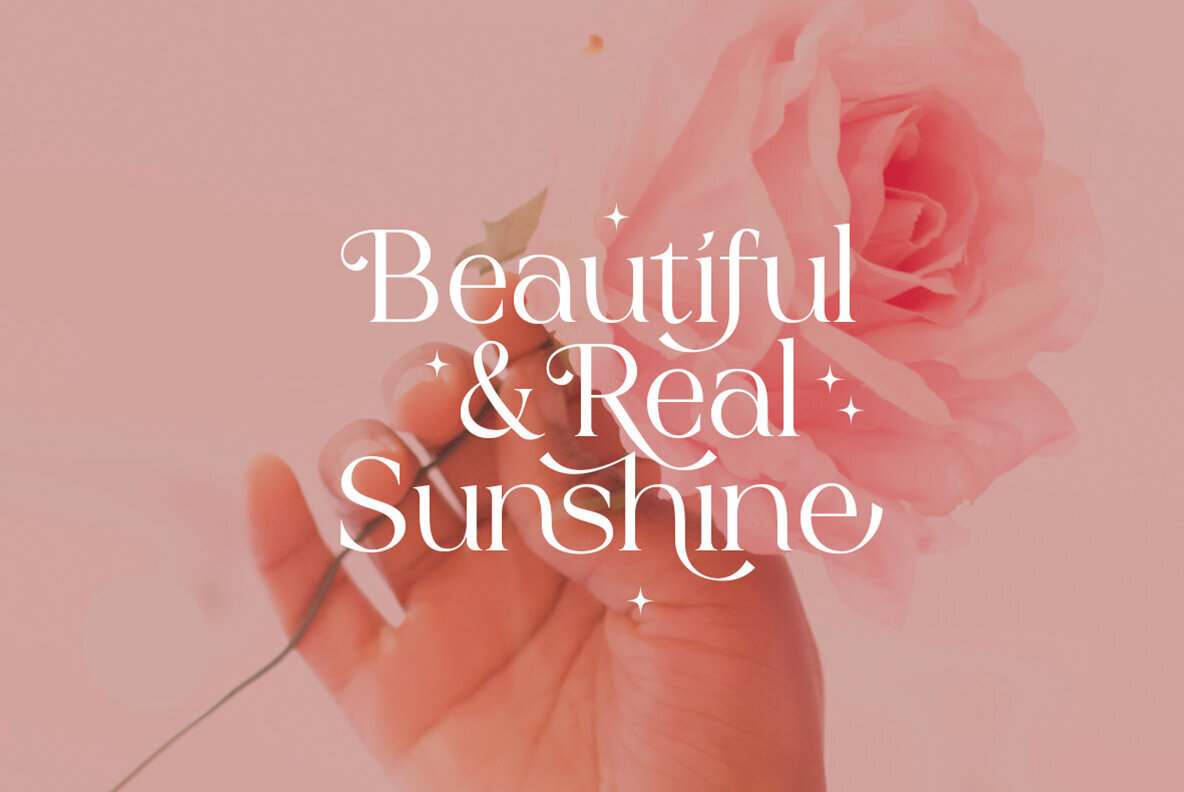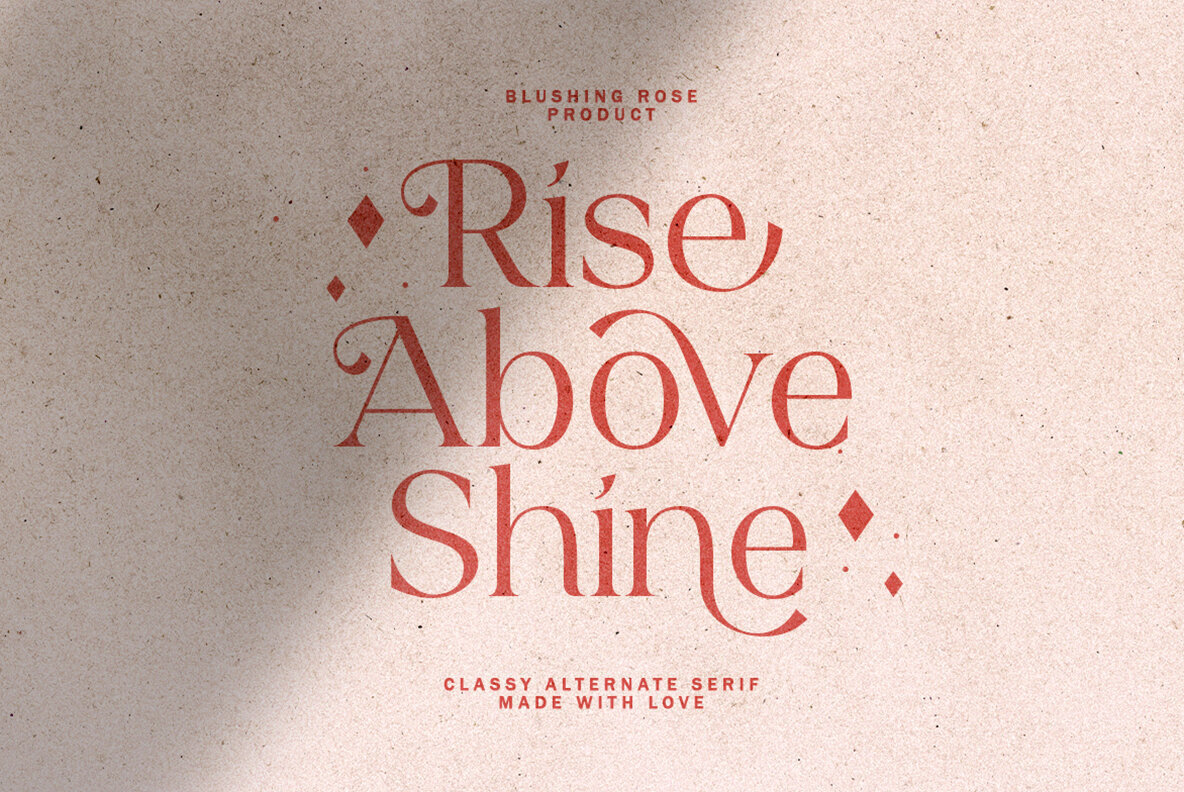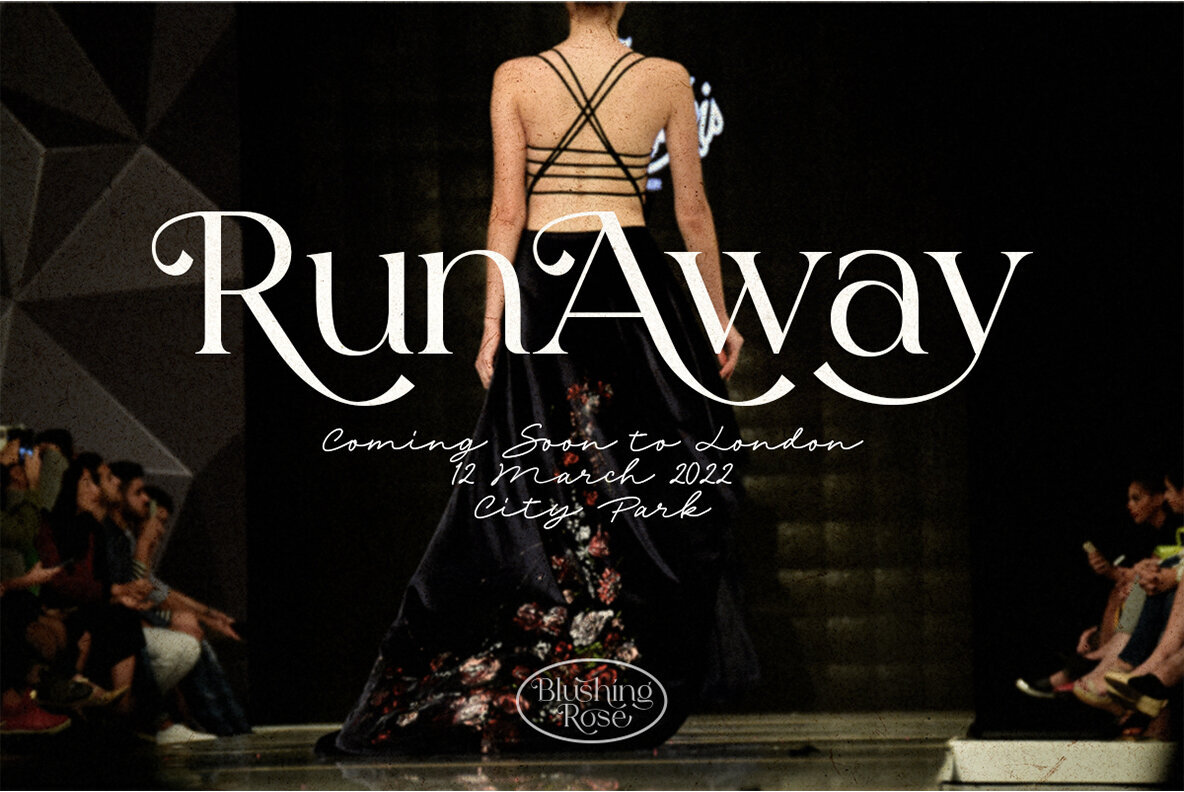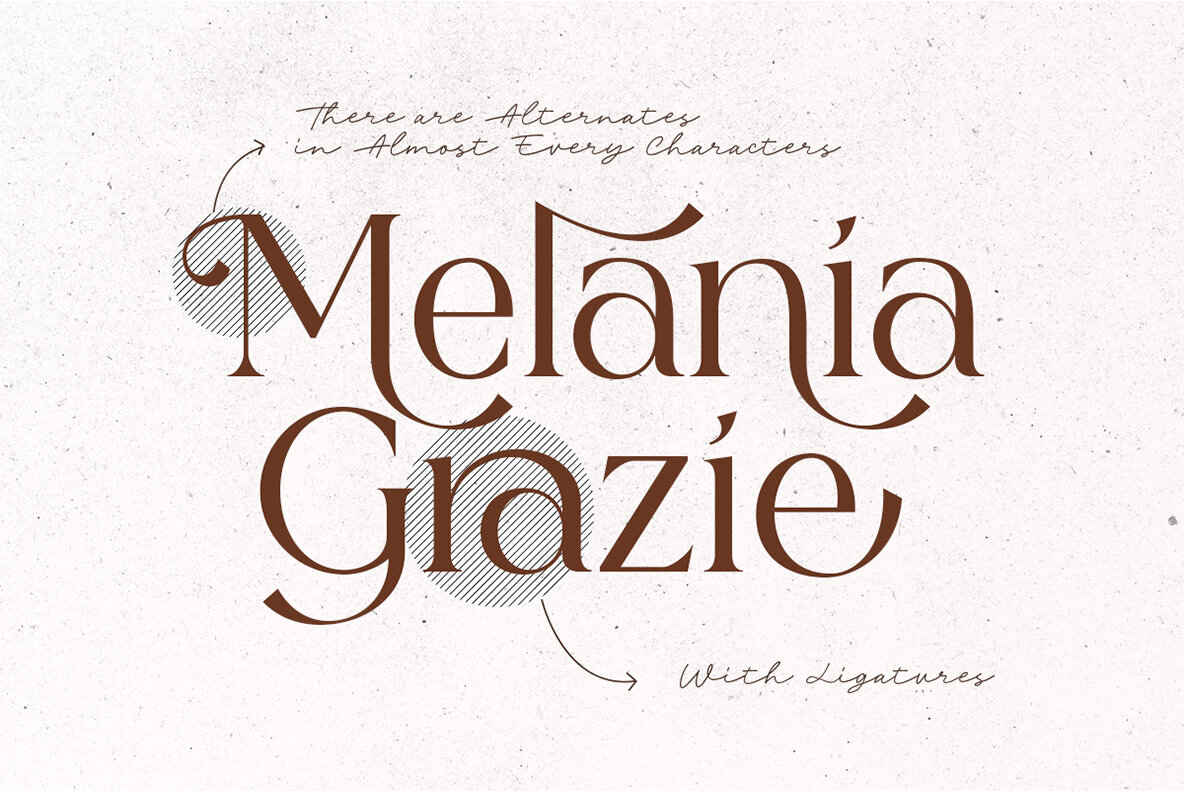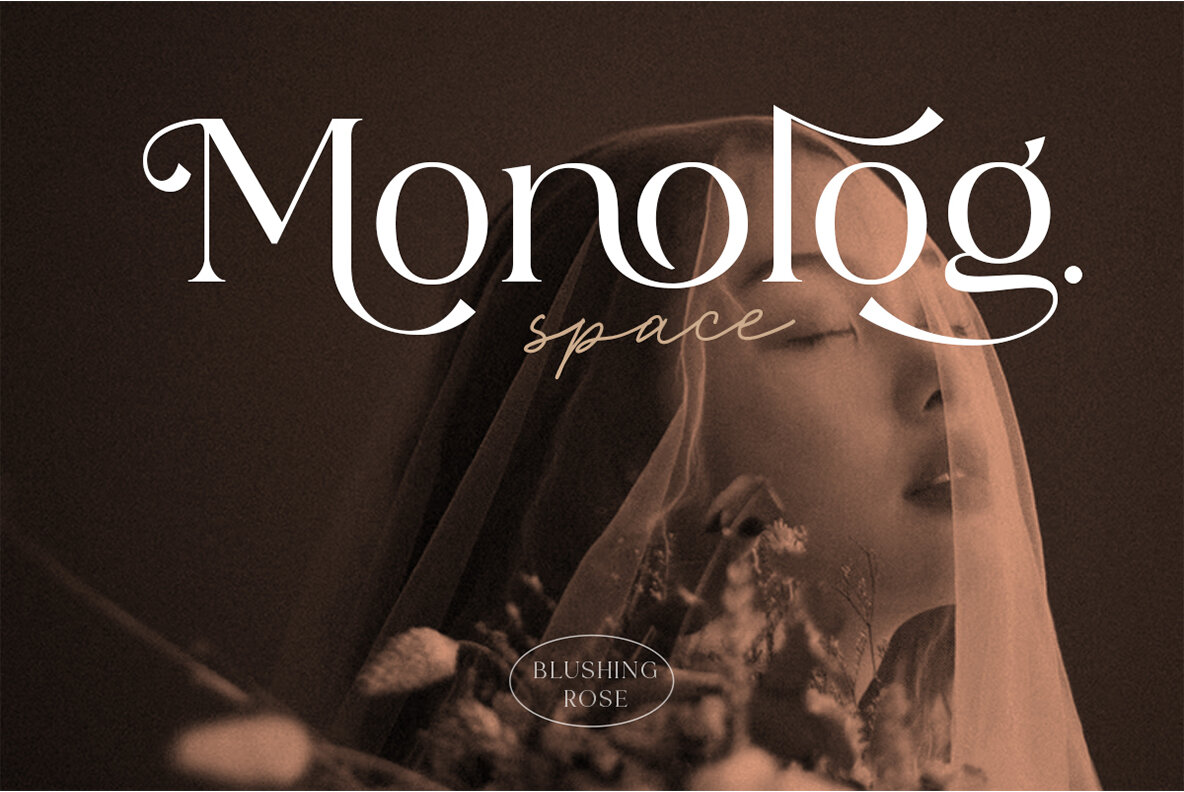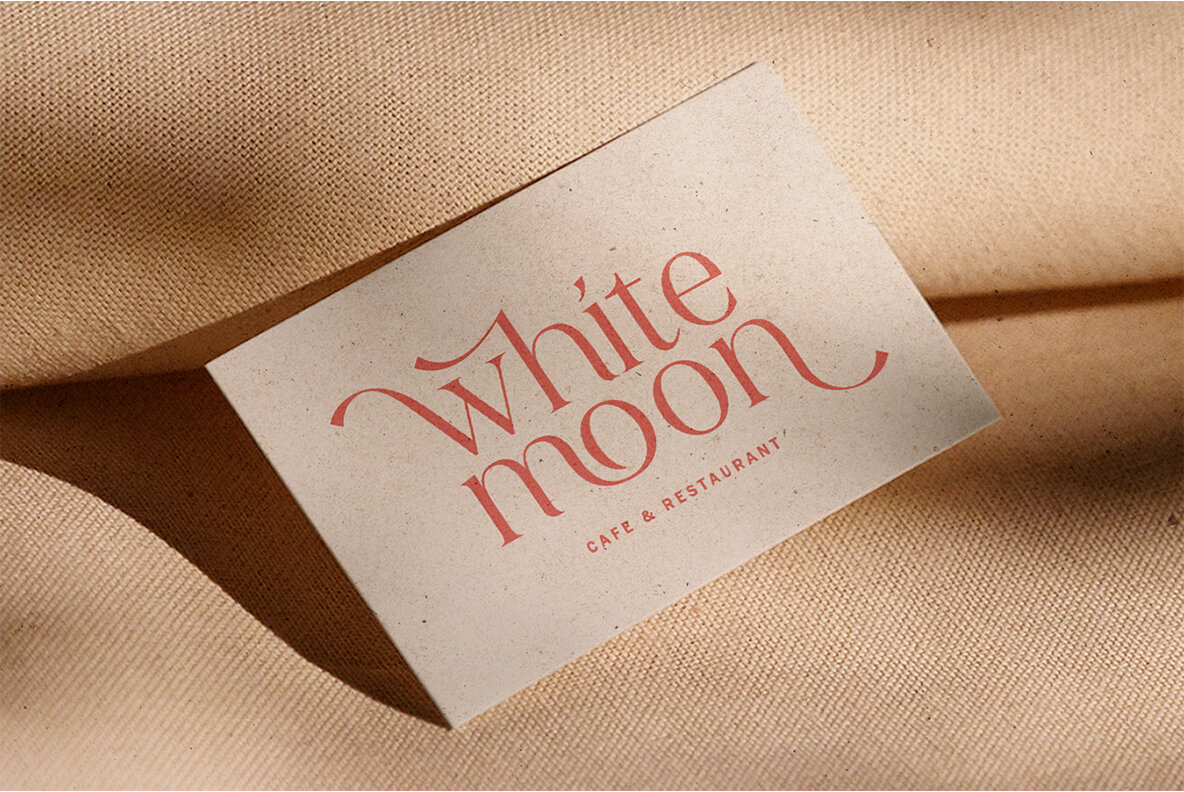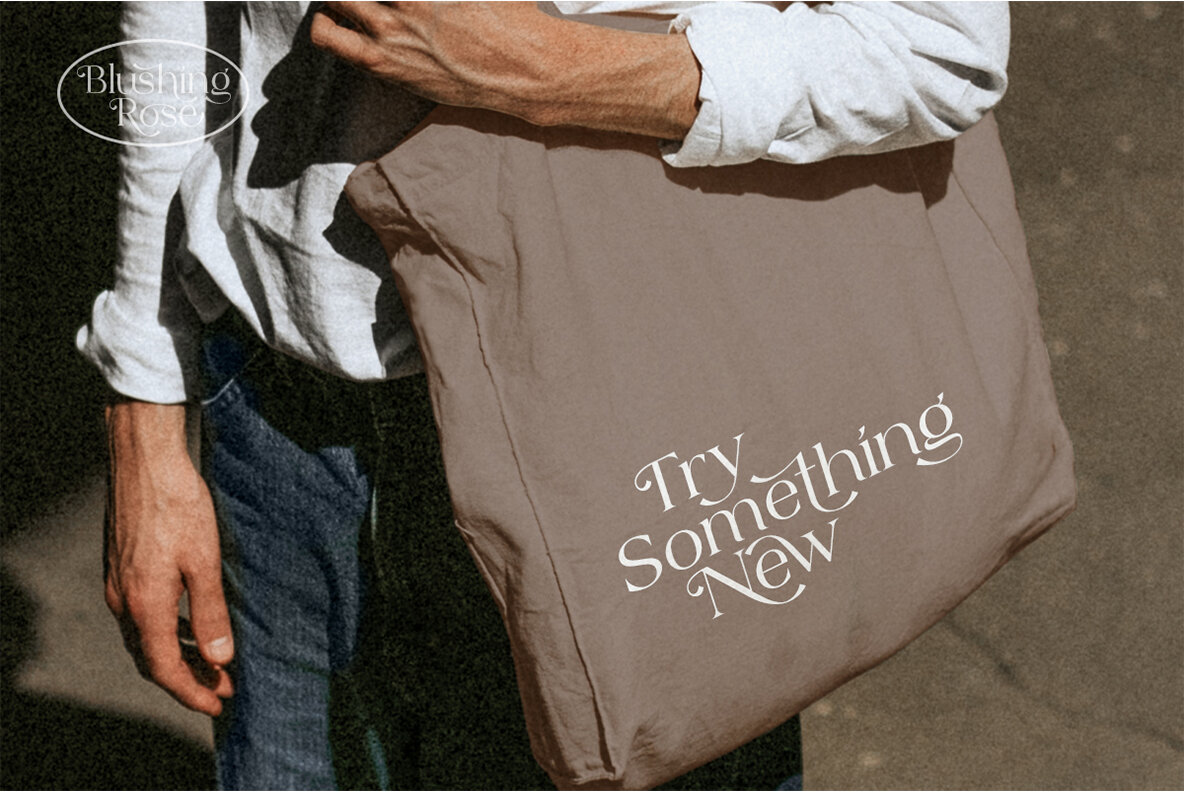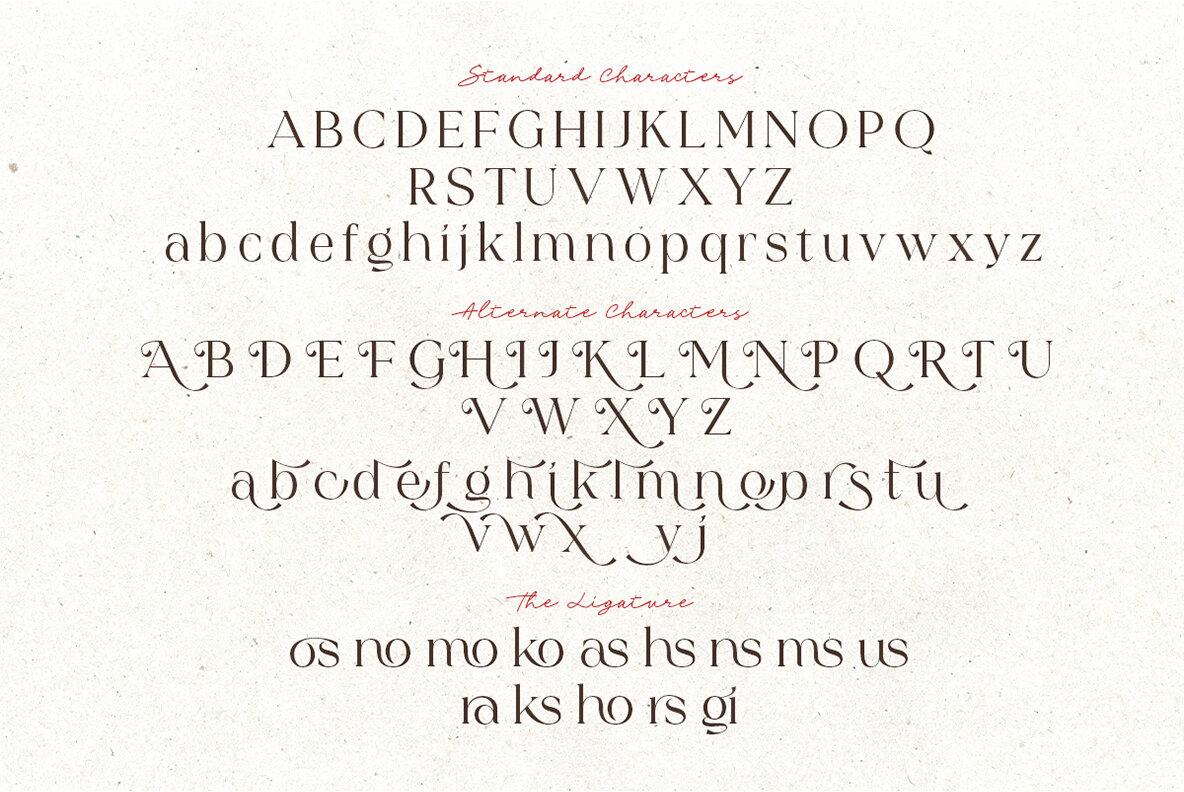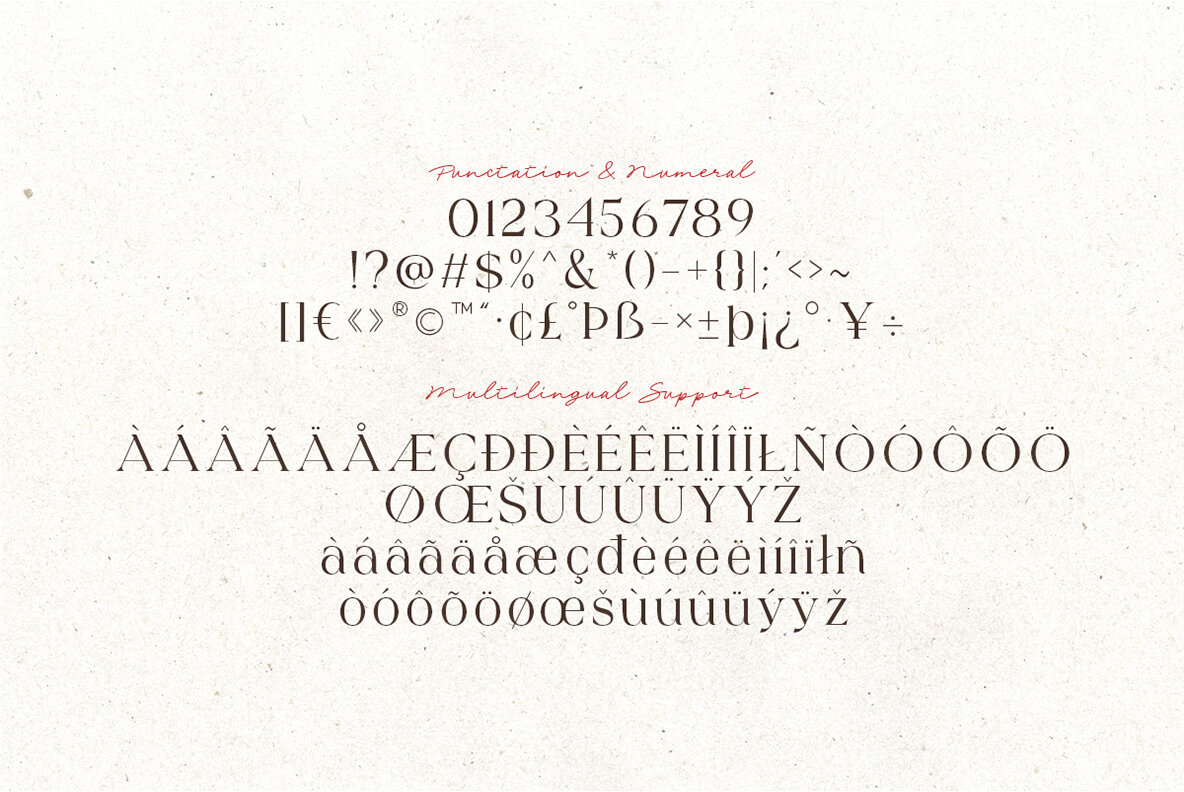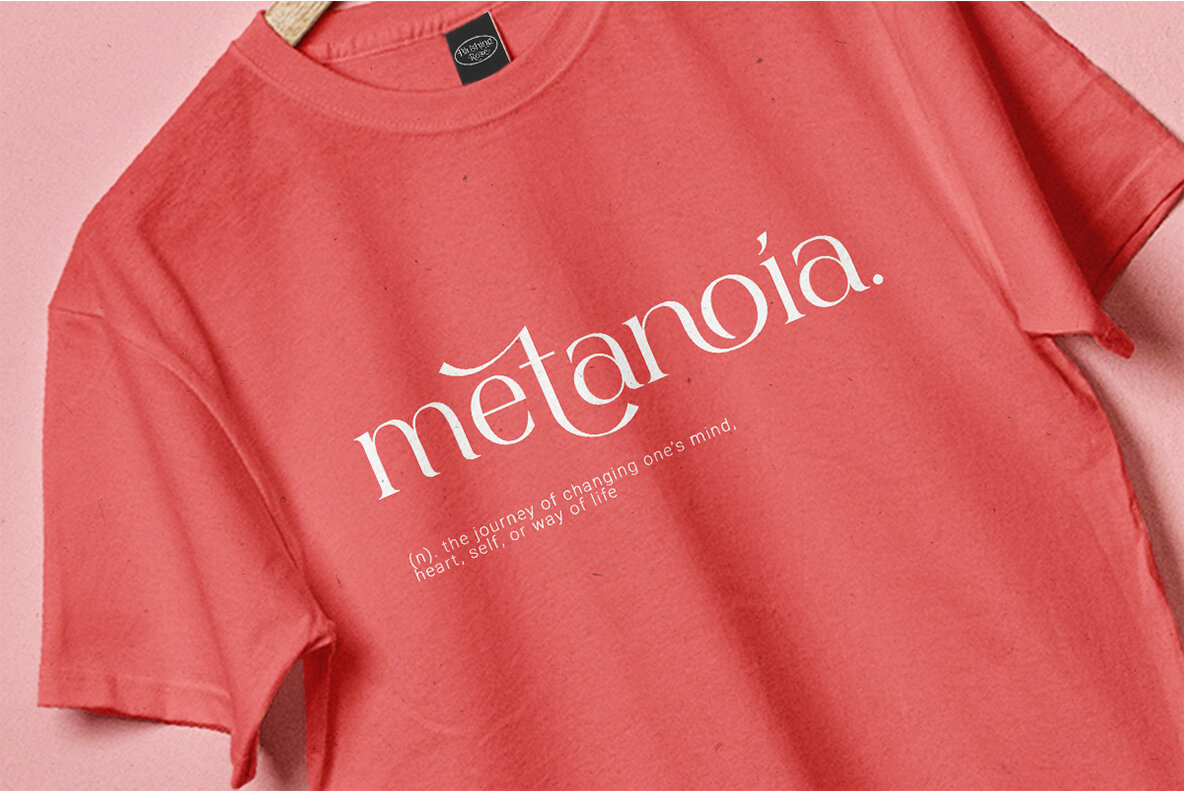
Blushing Rose Font
Blushing Rose Regular
The Blushing Rose font offers a modern serif style, complete with unique alternates and ligatures. Perfect for enhancing presentations or logos, this typeface brings a touch of elegance and attraction. Its versatility makes it ideal for diverse applications, from wedding invitations to branding and personal logos. Thanks to its ligatures, achieving a refined logo design becomes effortless, with minimal steps required.Blushing Rose: A Sophisticated Modern Serif